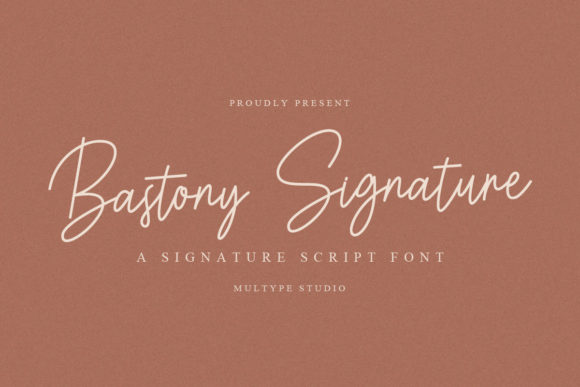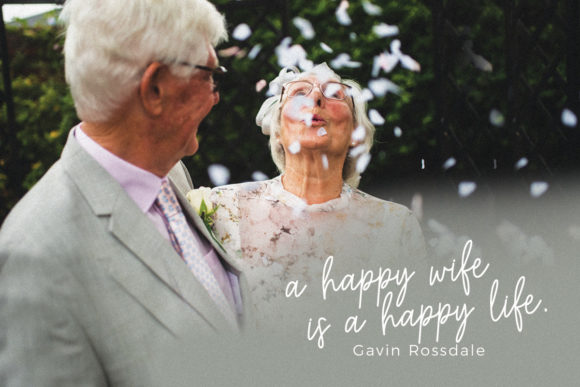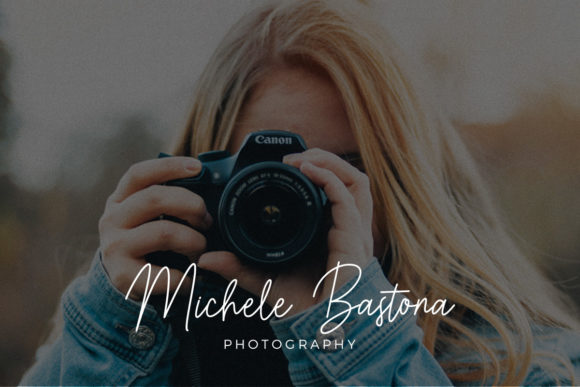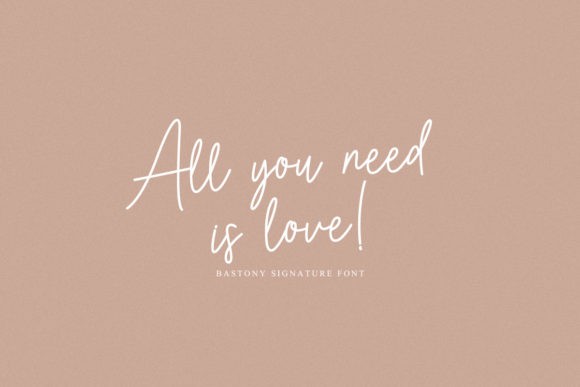
Bastony Signature Font
About Bastony Signature Font
Bastony Signature is a stylish and delicate script font. It has a clean, thin and smooth vibe and it will be a hit for any design that you want to add it to.